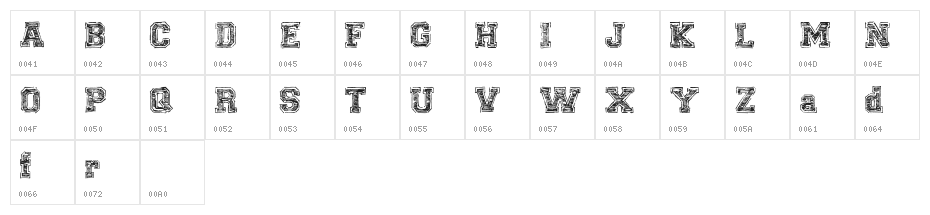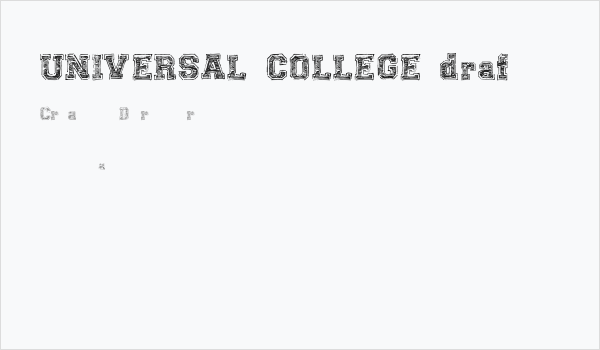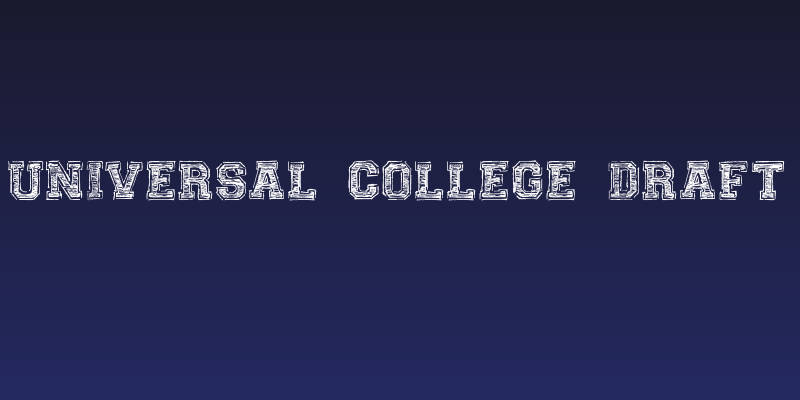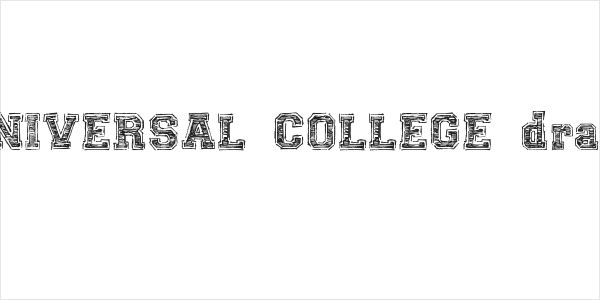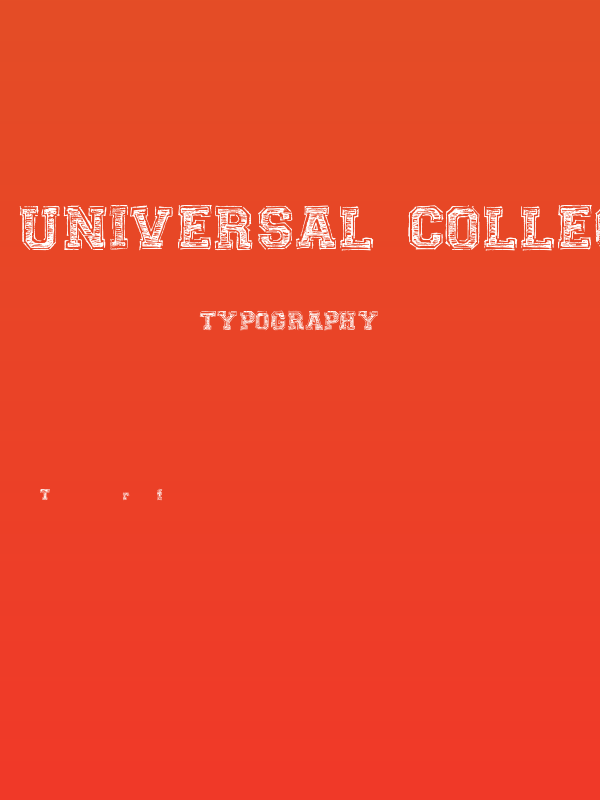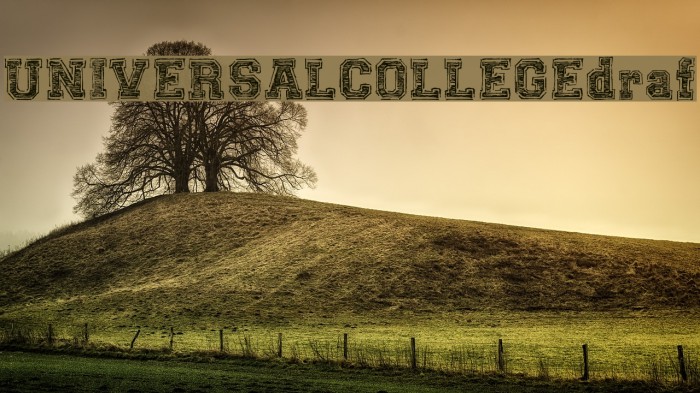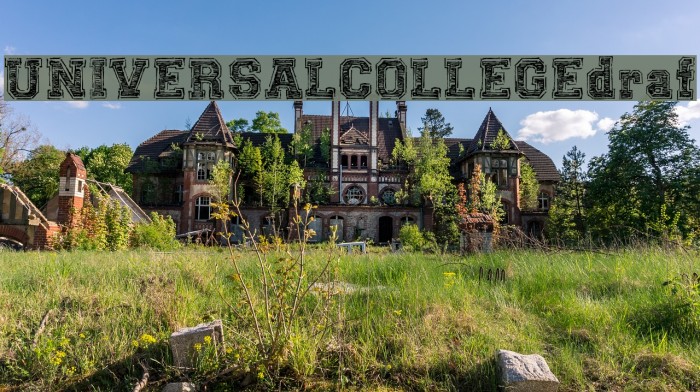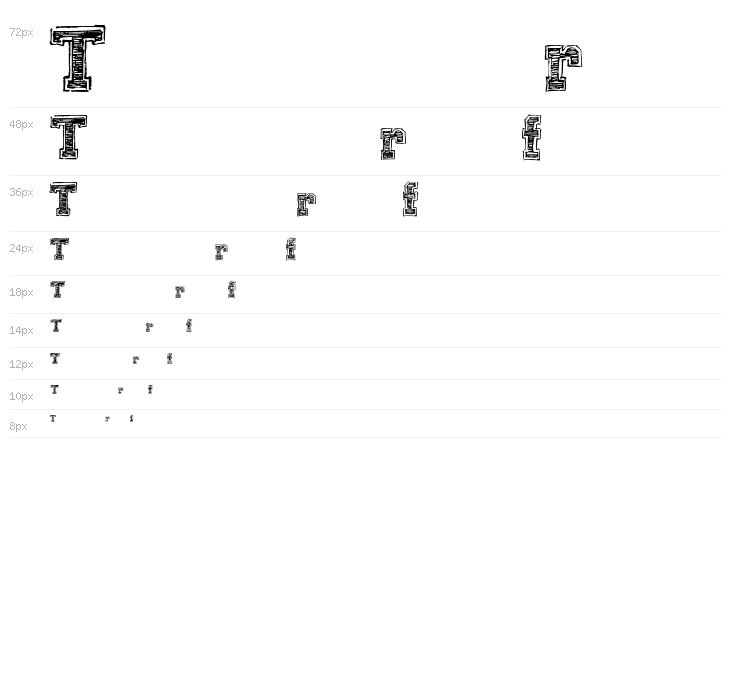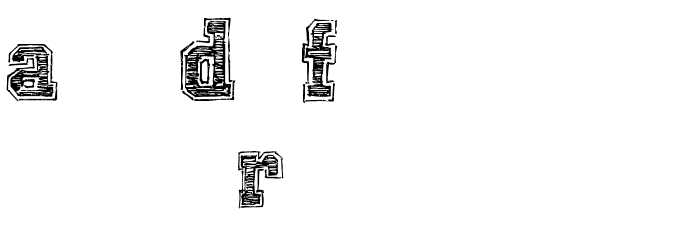
UNIVERSAL-COLLEGE-draft Font
UNIVERSAL-COLLEGE-draft Description
This font features a bold, decorative style with a vintage flair. Each character is outlined with a thick, textured stroke that gives it a hand-drawn appearance. The uppercase letters are particularly striking, with intricate detailing that adds depth and dimension. The lowercase letters maintain the same decorative style, though they are slightly less elaborate. The overall effect is reminiscent of old-school college or varsity lettering, making it ideal for projects that require a nostalgic or retro aesthetic. The font's unique texture and bold presence make it stand out, ensuring that any text set in this typeface will capture attention.
| Proposed Projects | Ideal for vintage-themed posters, retro branding, and eye-catching headlines. |